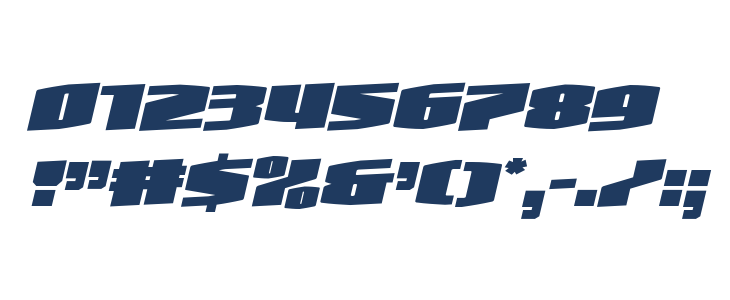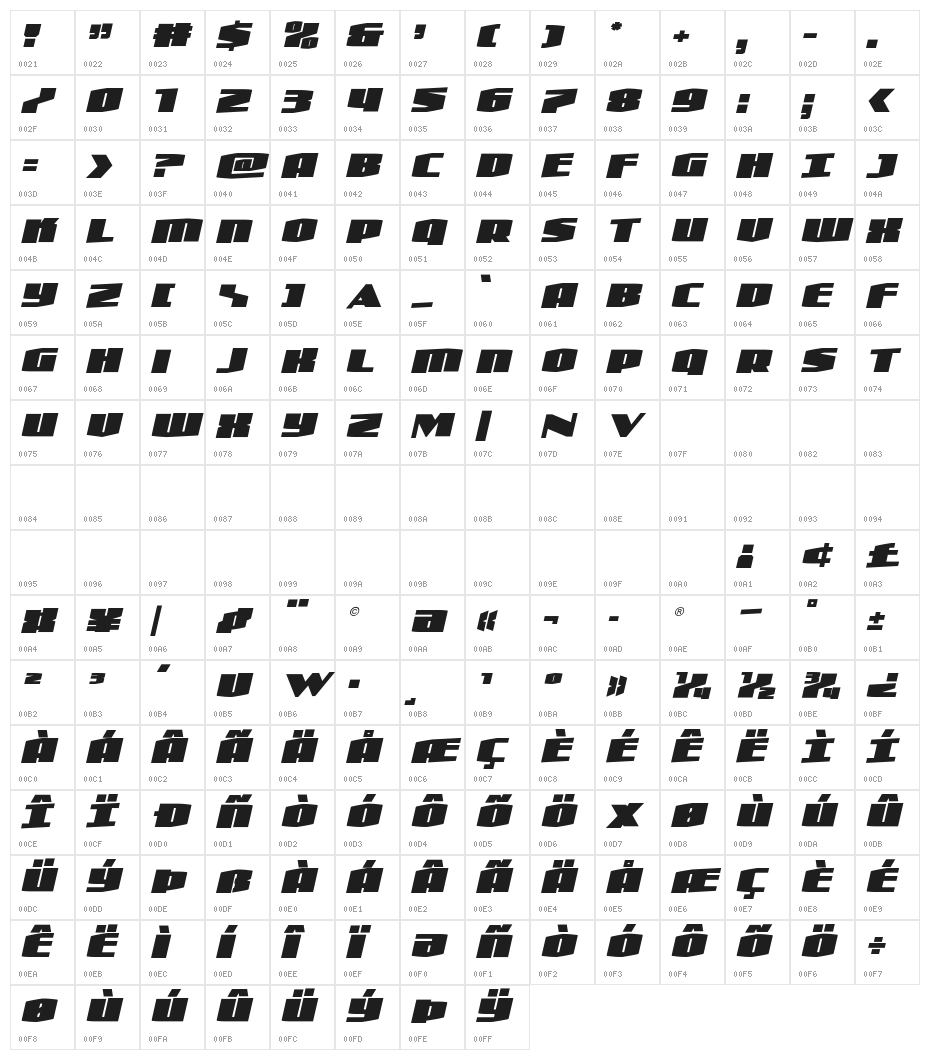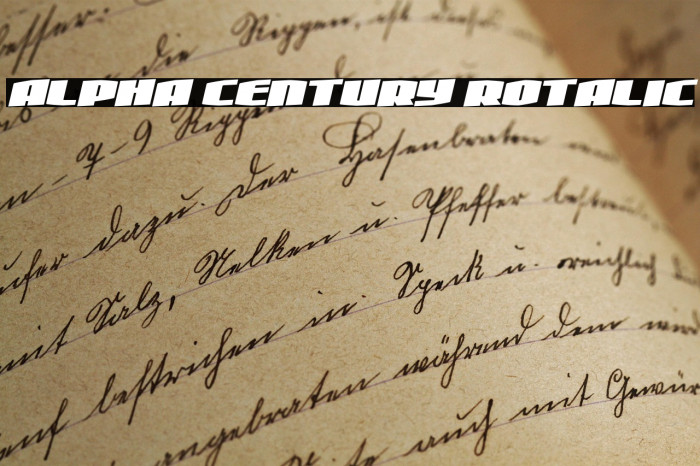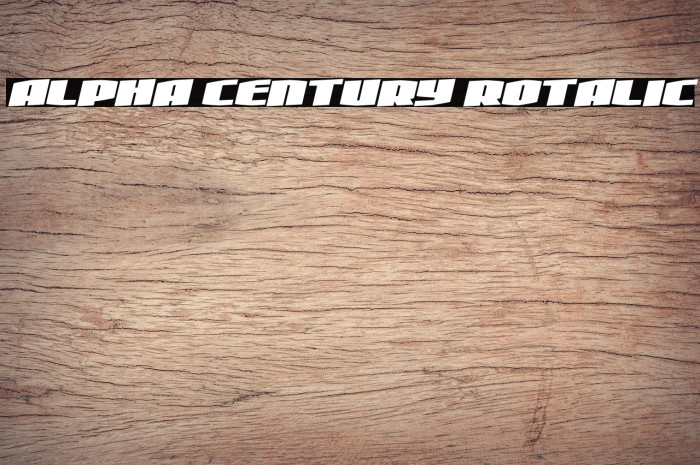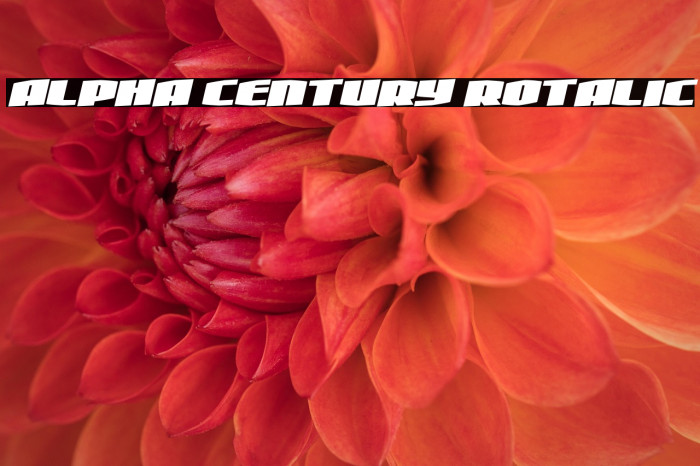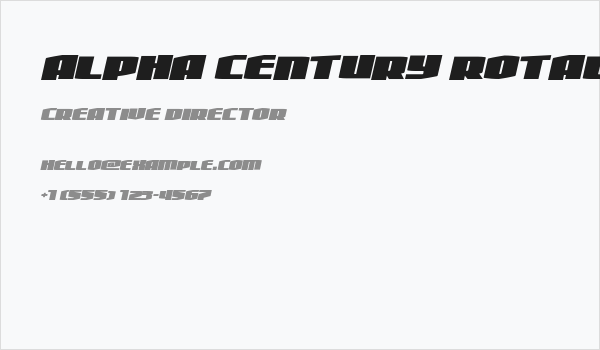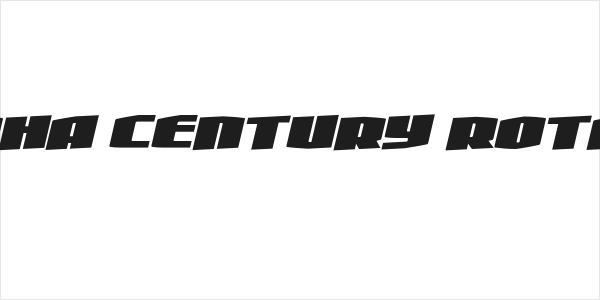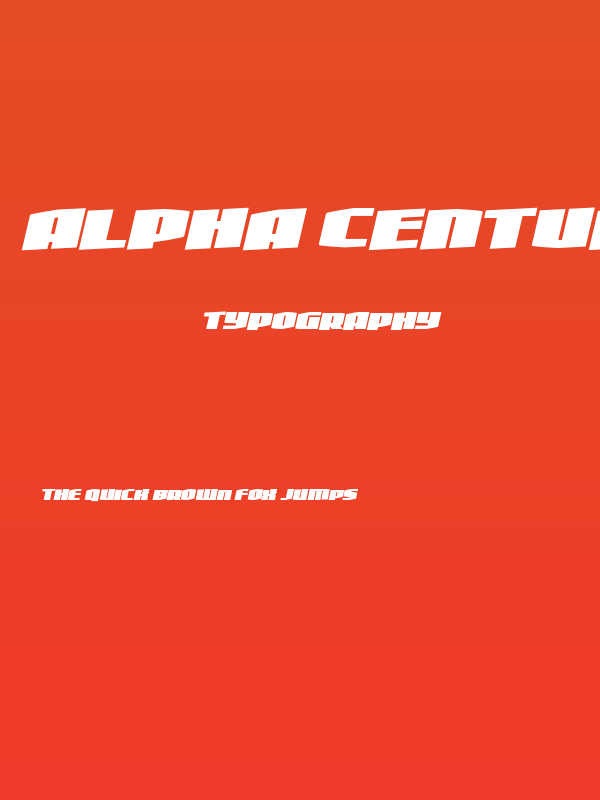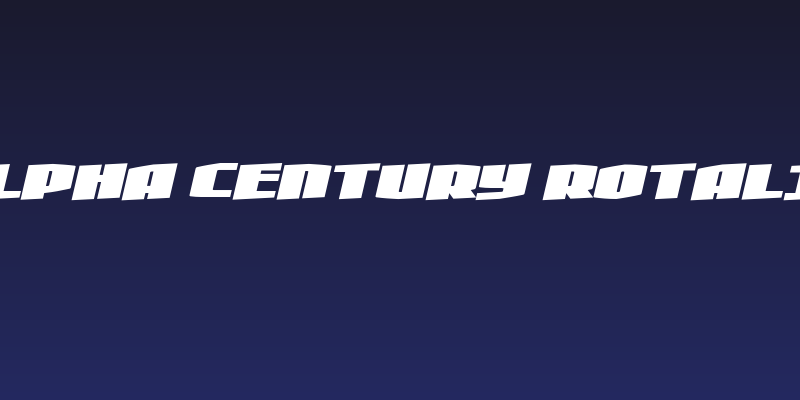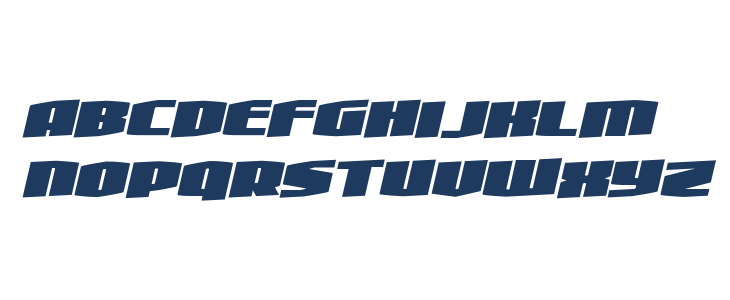
Alpha Century Rotalic Font
Alpha Century Rotalic Description
This font features a bold and dynamic design with a futuristic and angular style. The characters are slanted, giving a sense of motion and speed. The uppercase and lowercase letters maintain a consistent width, creating a uniform appearance. The numbers and special characters follow the same angular and bold design, ensuring cohesion across all elements. The font's unique style makes it stand out, with sharp edges and a slightly condensed form that adds to its modern appeal.
| Proposed Projects | Ideal for sci-fi movie posters, video game titles, and tech branding. |